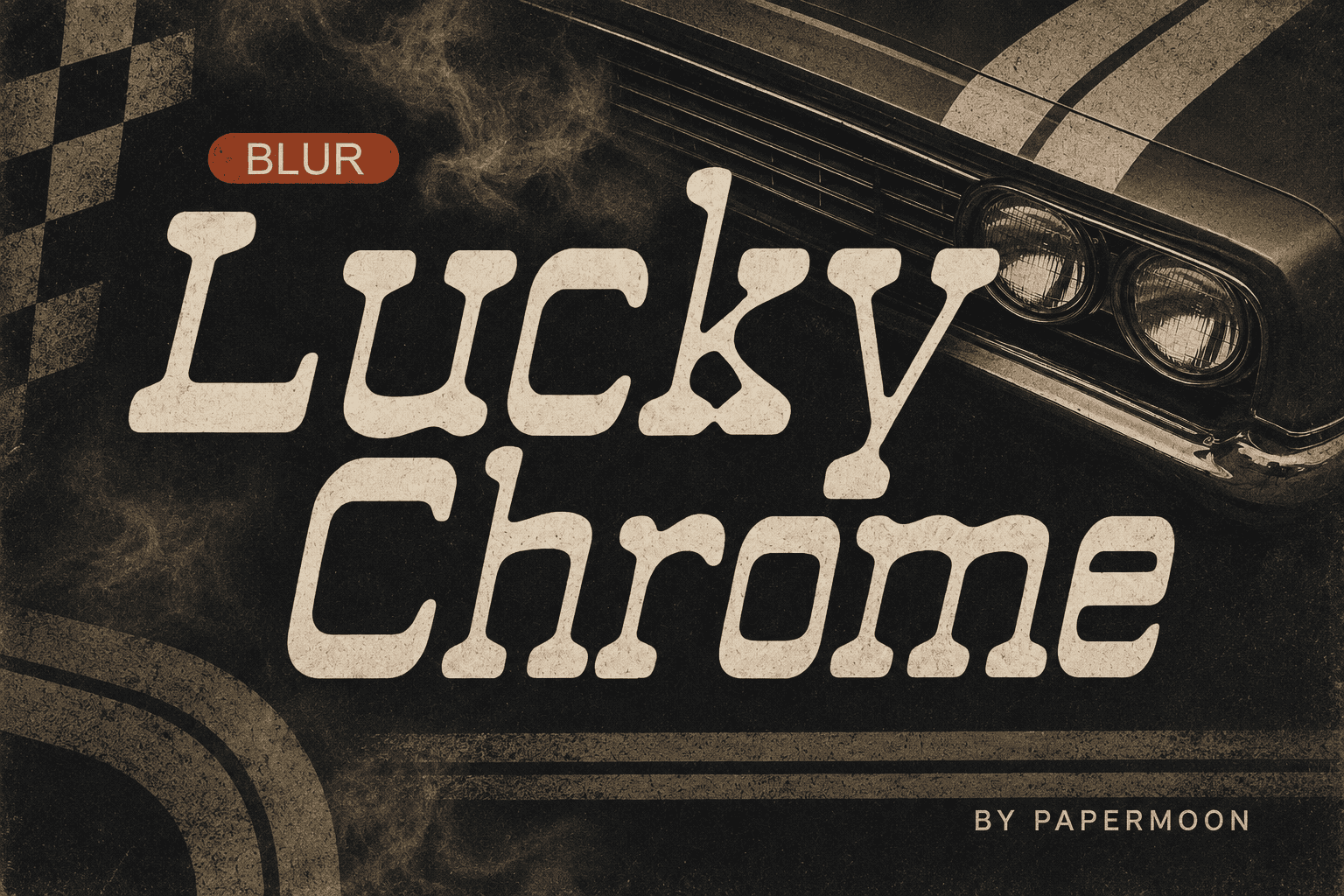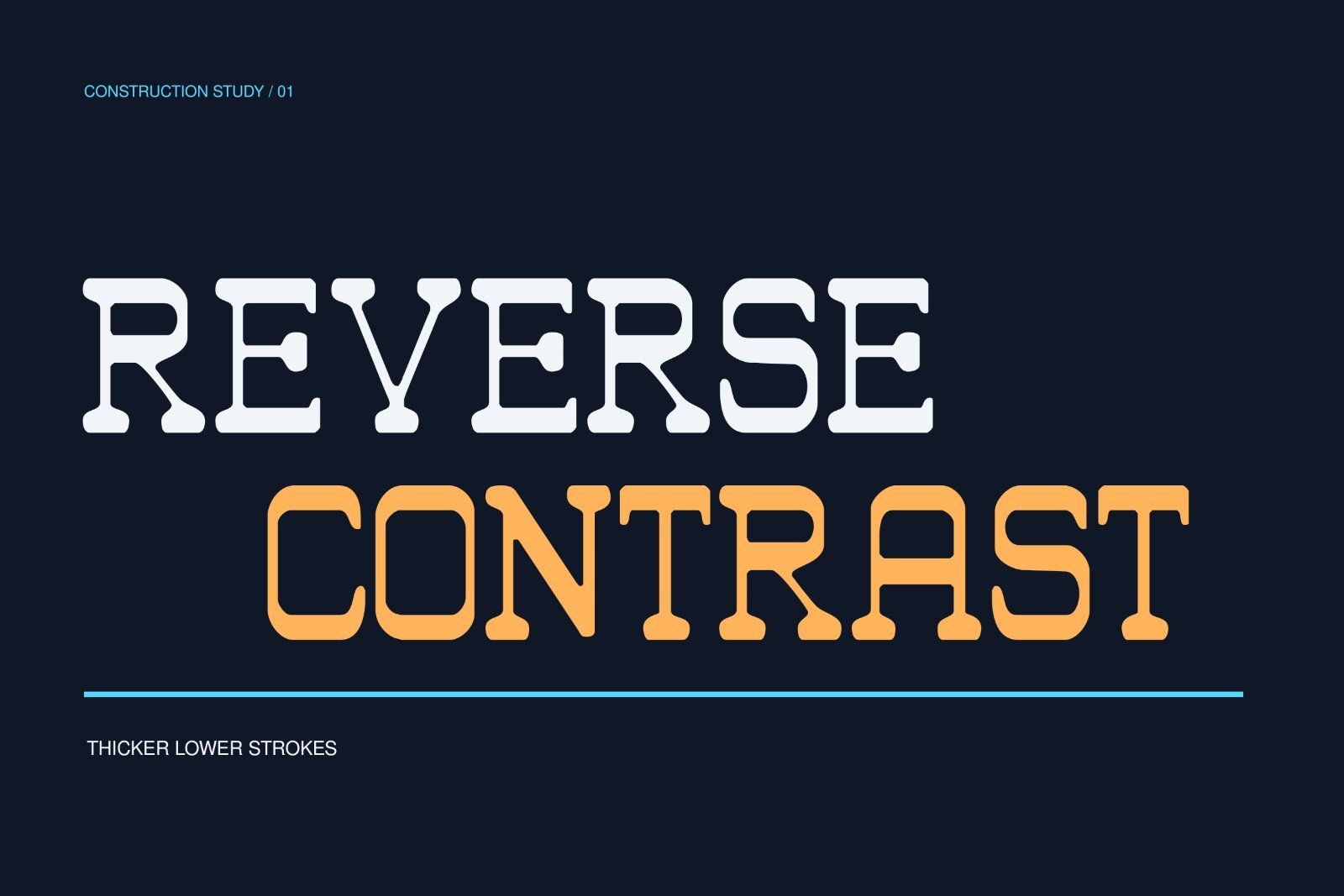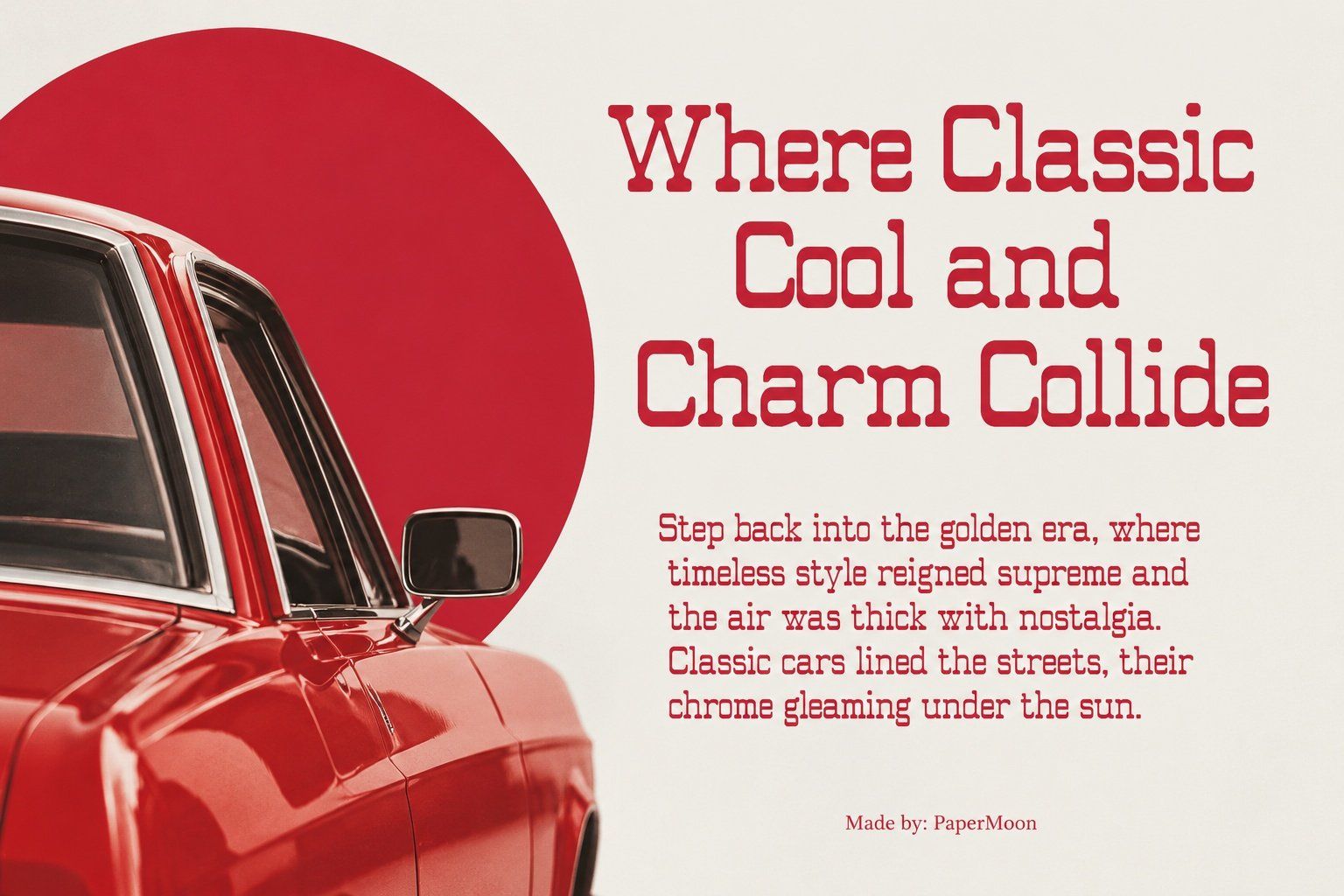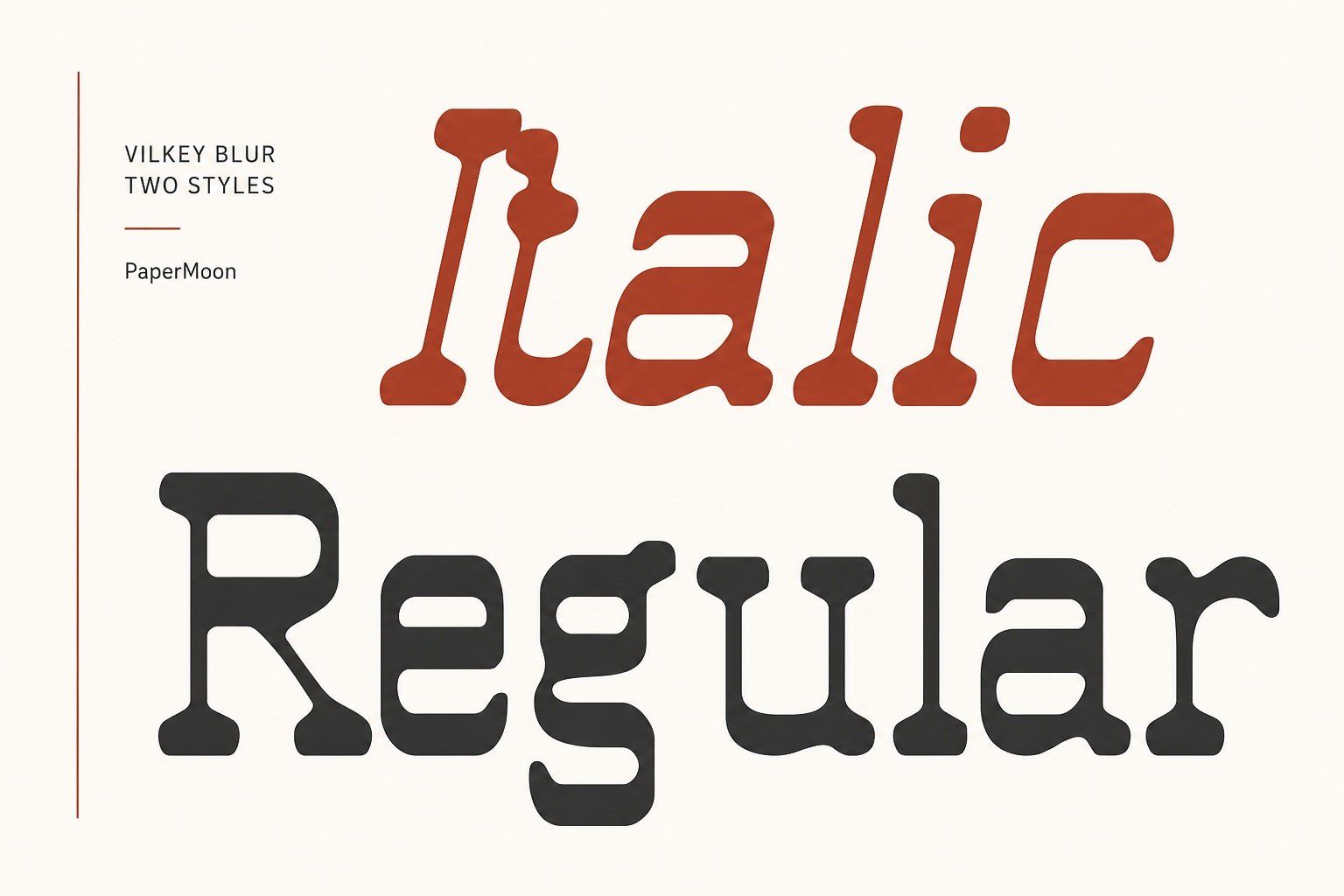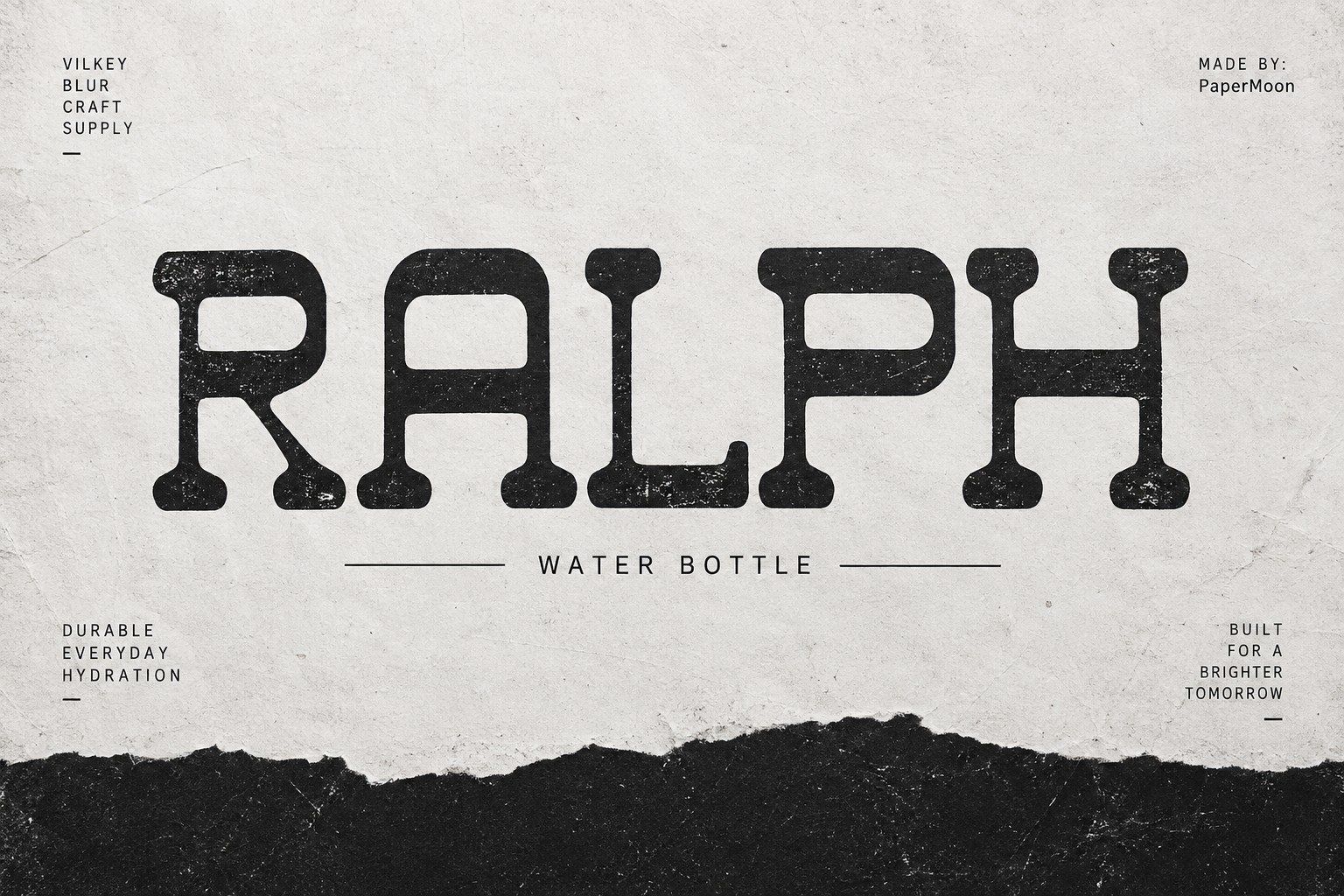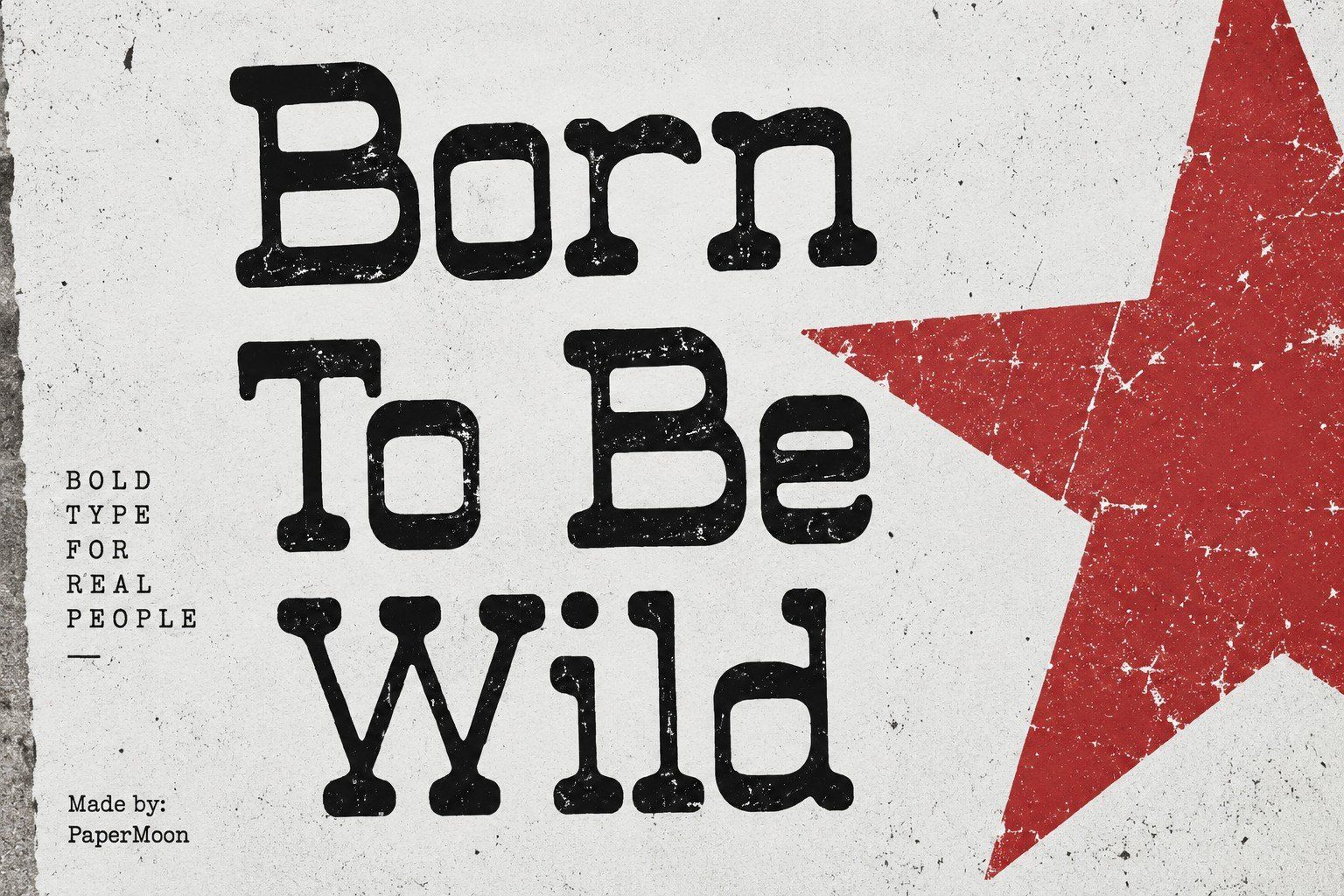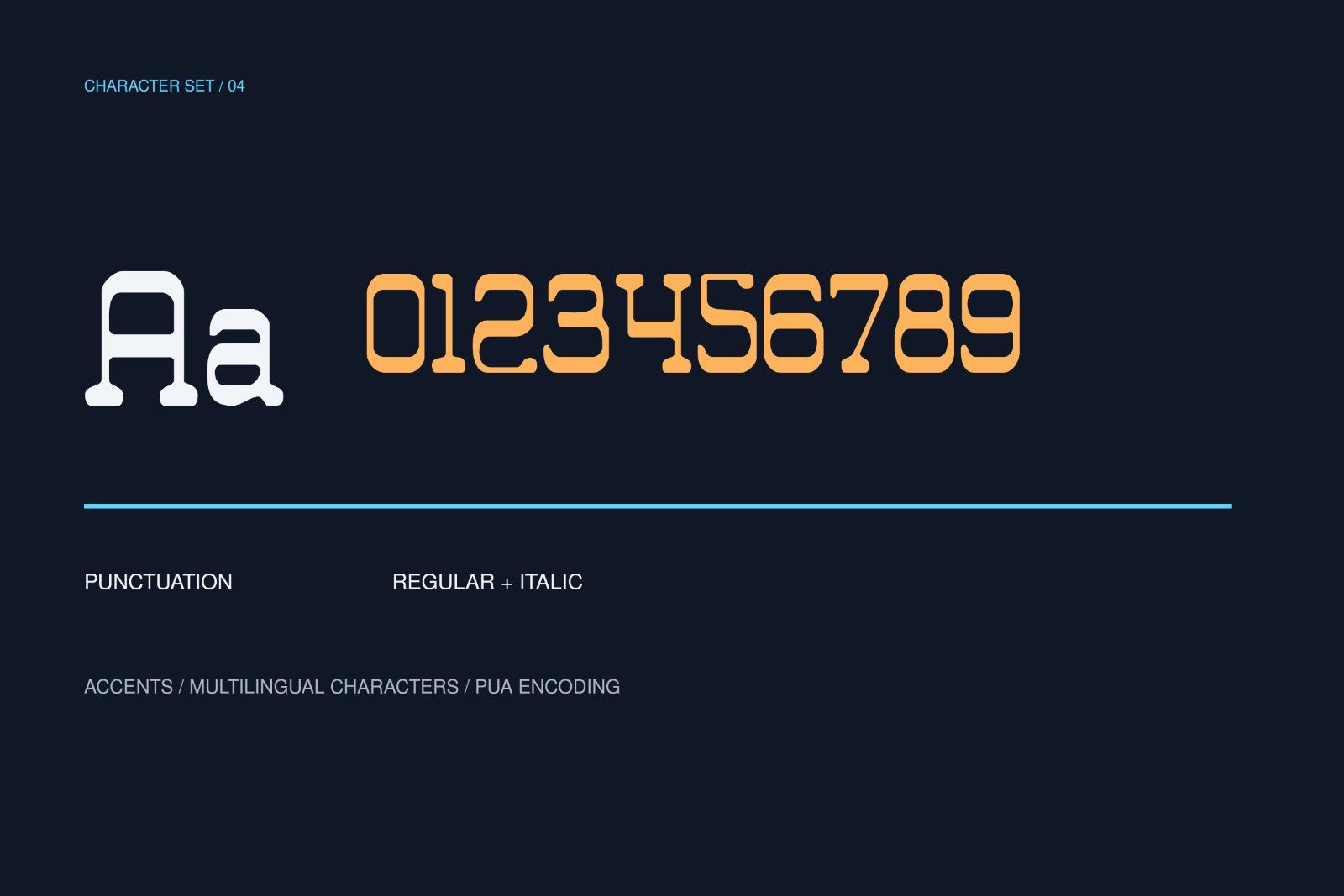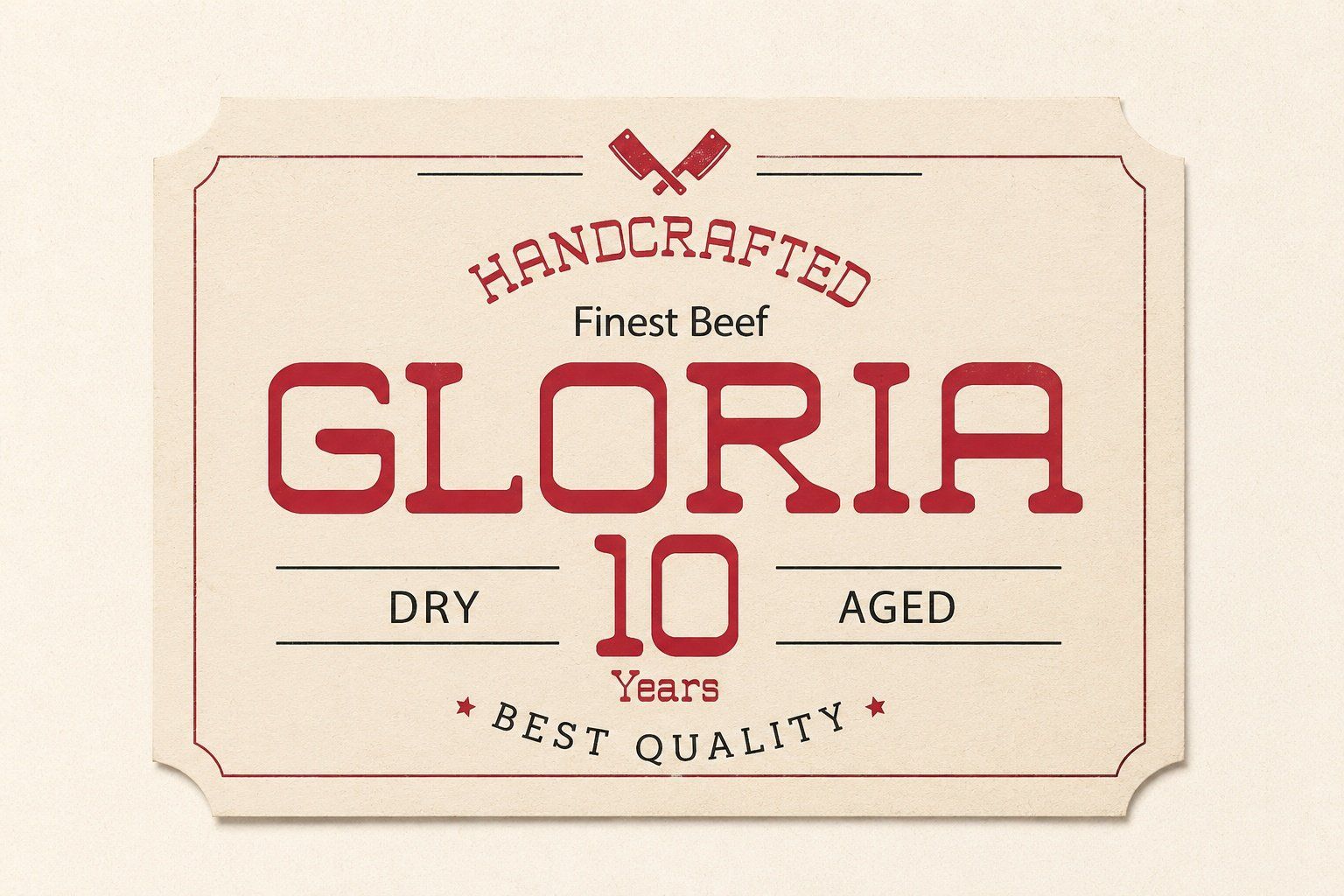
Lucky Chrome is a bold reverse-contrast slab serif font with a soft blur effect for memorable branding, advertising, and headlines.
Lucky Chrome combines sturdy slab serifs with reverse-contrast construction: the lower portions of the letters are heavier while the upper sections become thinner. A soft blur effect gives the lettering an atmospheric edge while preserving a strong, attention-grabbing silhouette. Use it when a project needs serif authority with an unusual, contemporary visual character.
• Branding and logo concepts
• Advertising and promotional graphics
• Headlines, titles, and poster typography
• Editorial and display compositions
• Regular and Italic styles
• Uppercase and lowercase letters
• Numerals and punctuation
• Multilingual accents
Bring Lucky Chrome into your next headline or identity concept for a bold serif presence shaped by reverse contrast and a distinctive soft-focus finish.